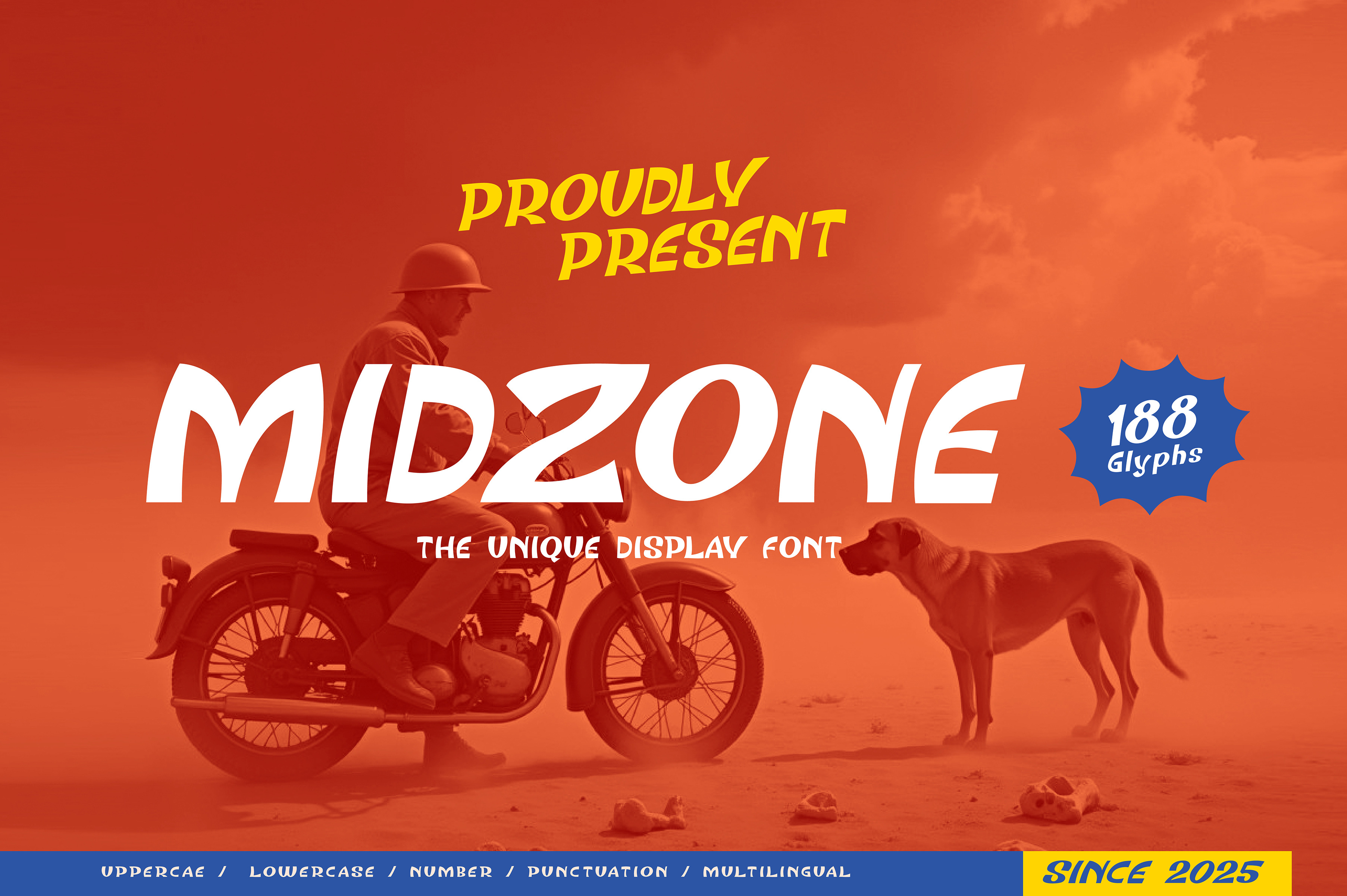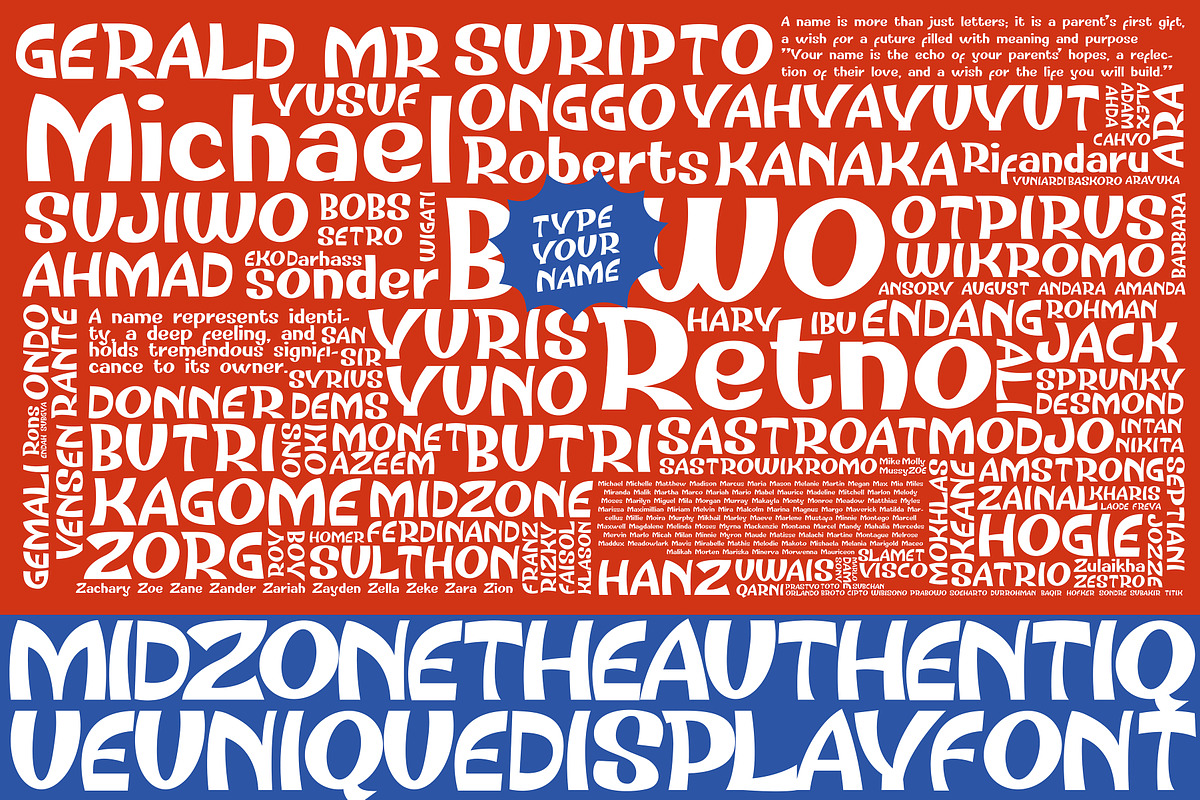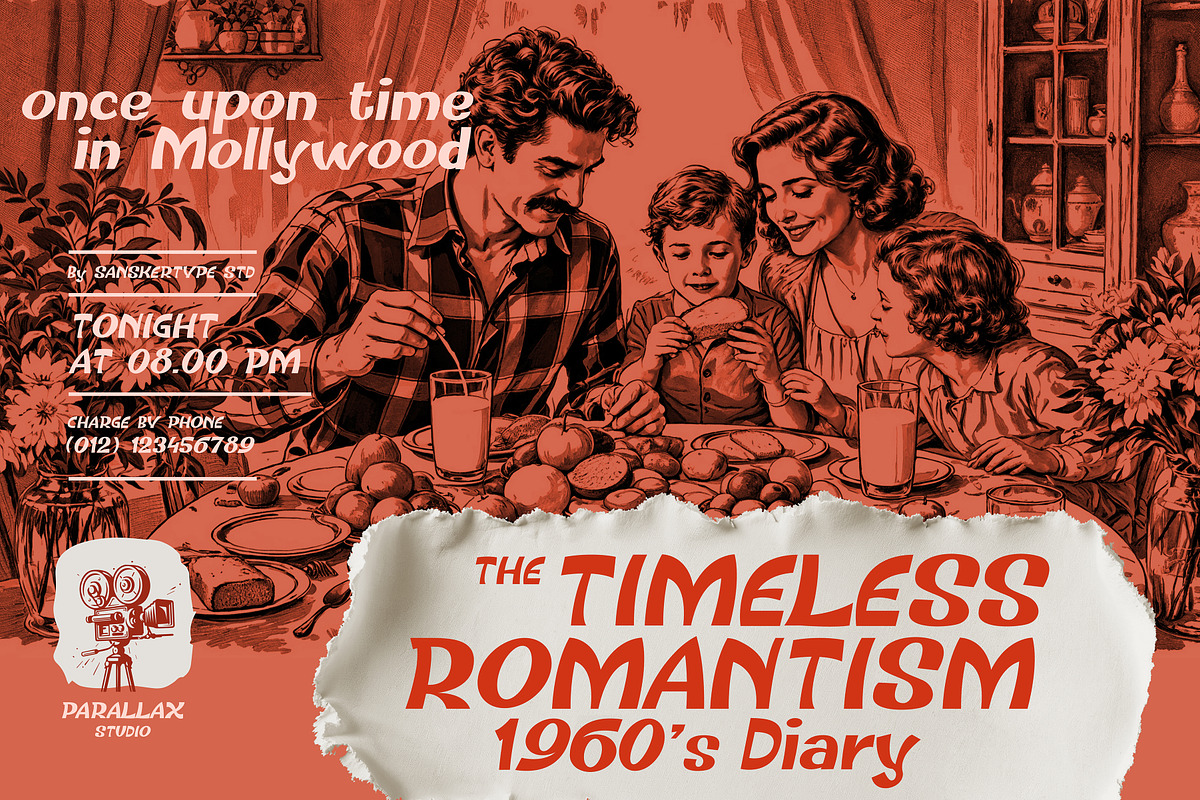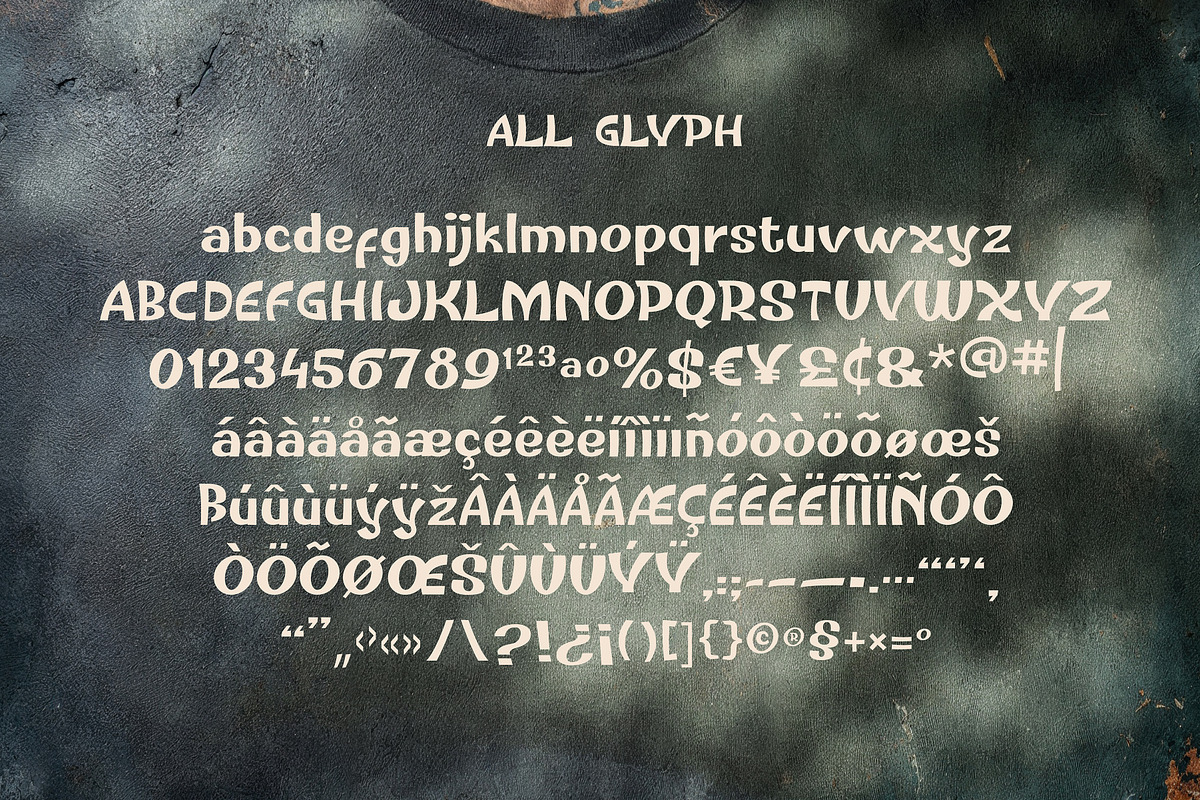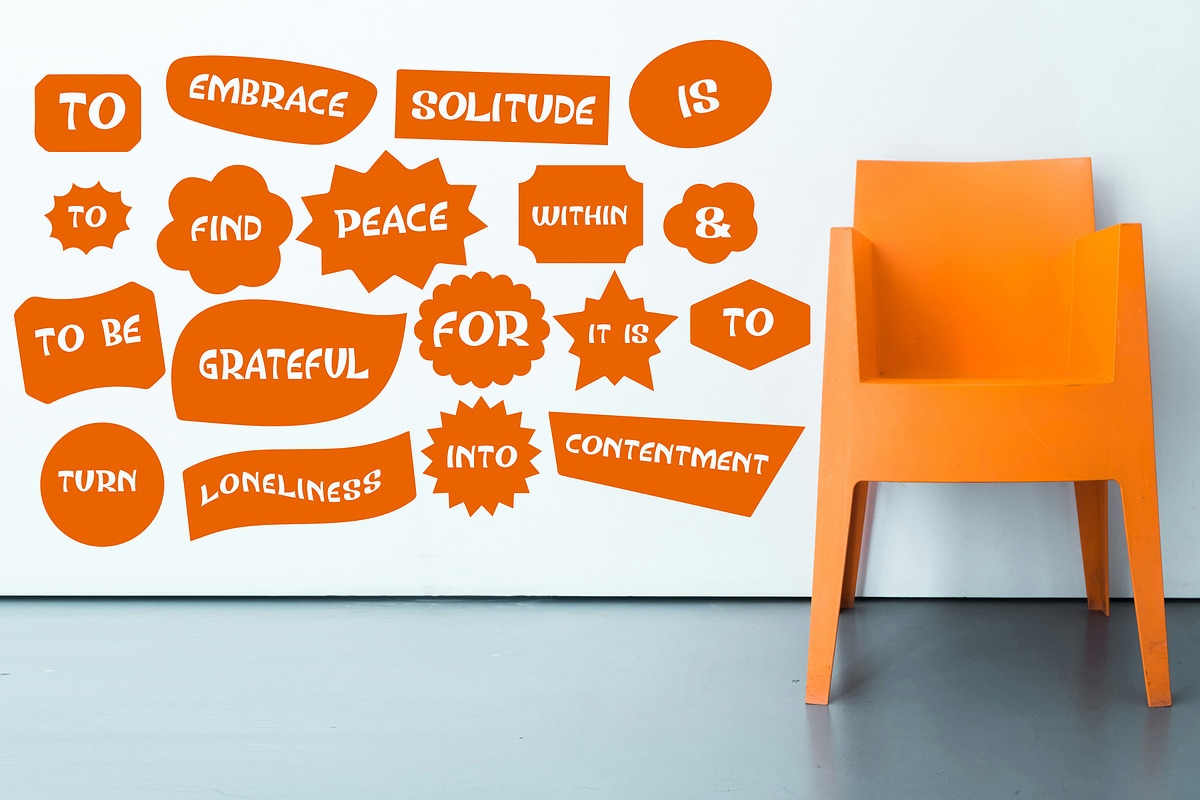
Midzone – Display Font
Midzone – A Unique and Trendy Sans-Serif Display Font
Midzone is a stylish sans-serif display font, perfect for making bold statements with a timeless and youthful edge. With its clean lines and minimalist design, Midzone offers a trendy and contemporary vibe, making it an ideal choice for product names, headlines, posters, and branding projects.
Designed with versatility in mind, Midzone fits seamlessly into a wide range of creative projects—from fashion campaigns and social media posts to branding and lifestyle products. Its simple yet expressive character brings a fresh, youthful energy to any design.
Make your design names pop with the modern simplicity of Midzone—where style meets versatility.